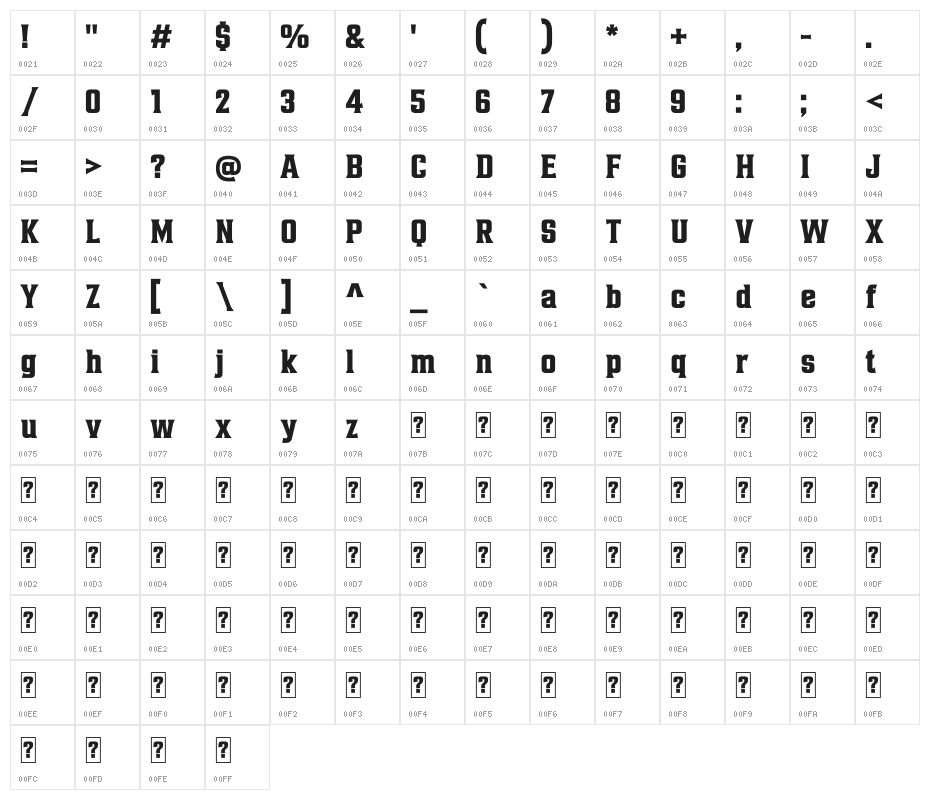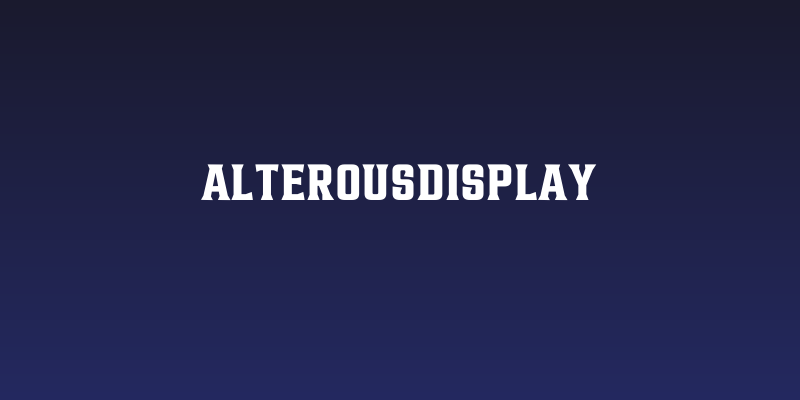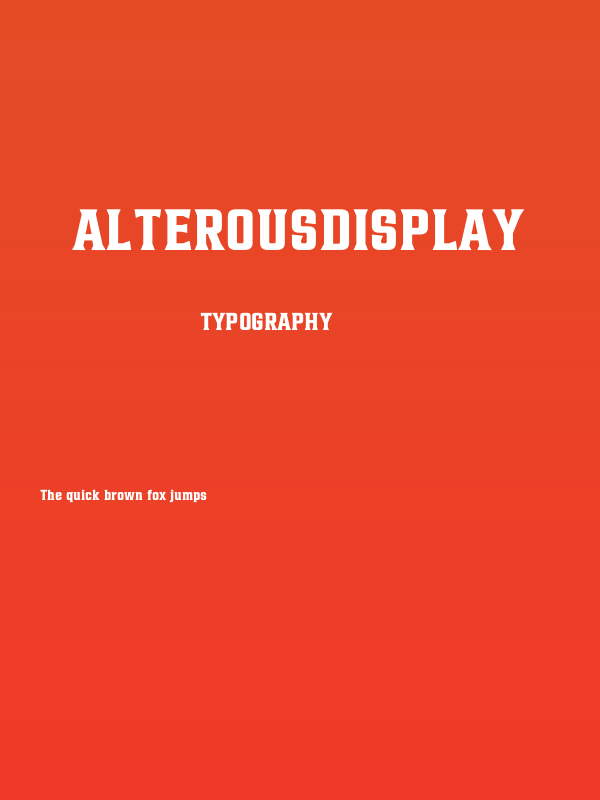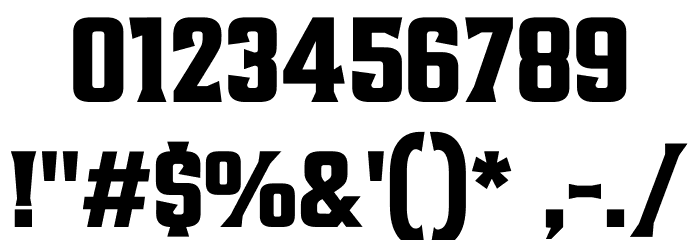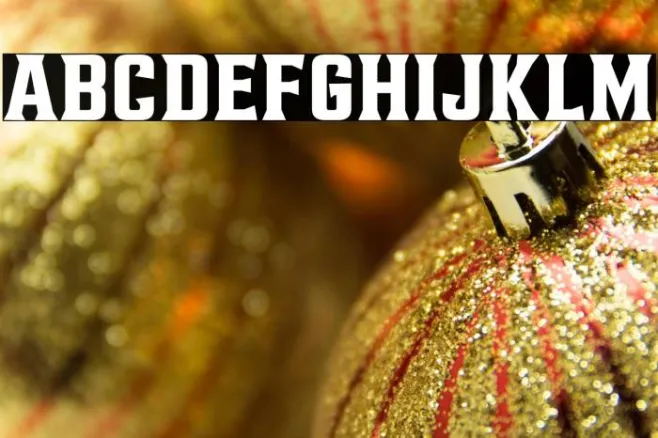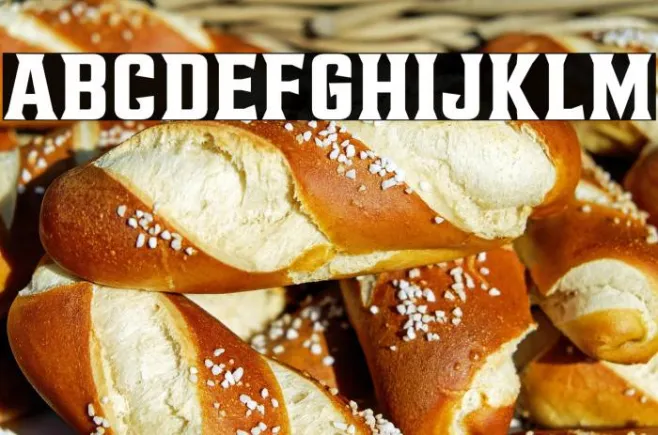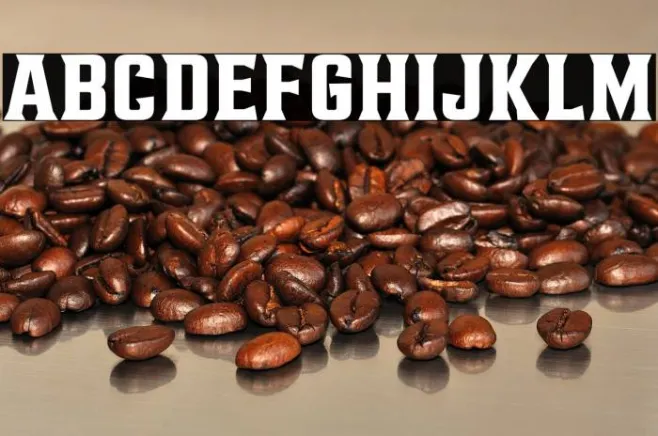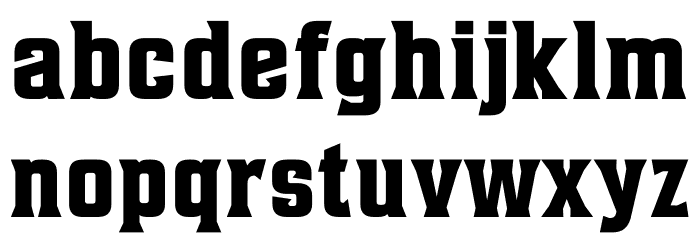
AlterousDisplay Font
AlterousDisplay Description
This font exhibits a bold and commanding presence with its thick, block-like characters. The uppercase letters are particularly striking, featuring sharp angles and a strong, authoritative stance. The lowercase letters maintain this boldness while offering a slightly more rounded appearance, providing a nice contrast to the uppercase. The numerals are equally robust, ensuring they stand out in any context. Special characters are designed with the same boldness, making them perfect for attention-grabbing headlines or impactful statements. The overall style is reminiscent of vintage or retro designs, yet it maintains a modern edge that makes it versatile for various applications.
| Overall Style | Vintage, Modern |
| Proposed Projects | Ideal for use in posters, logos, branding materials, and any design requiring a strong, eye-catching font. |